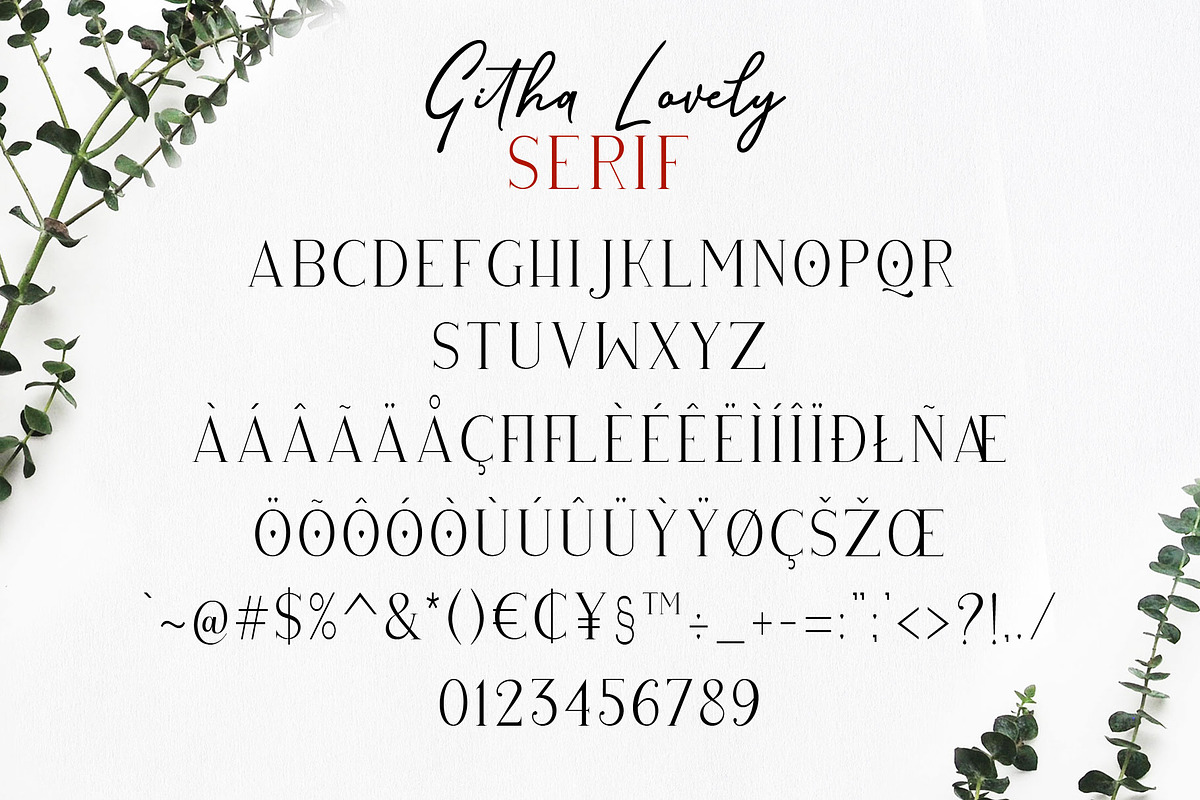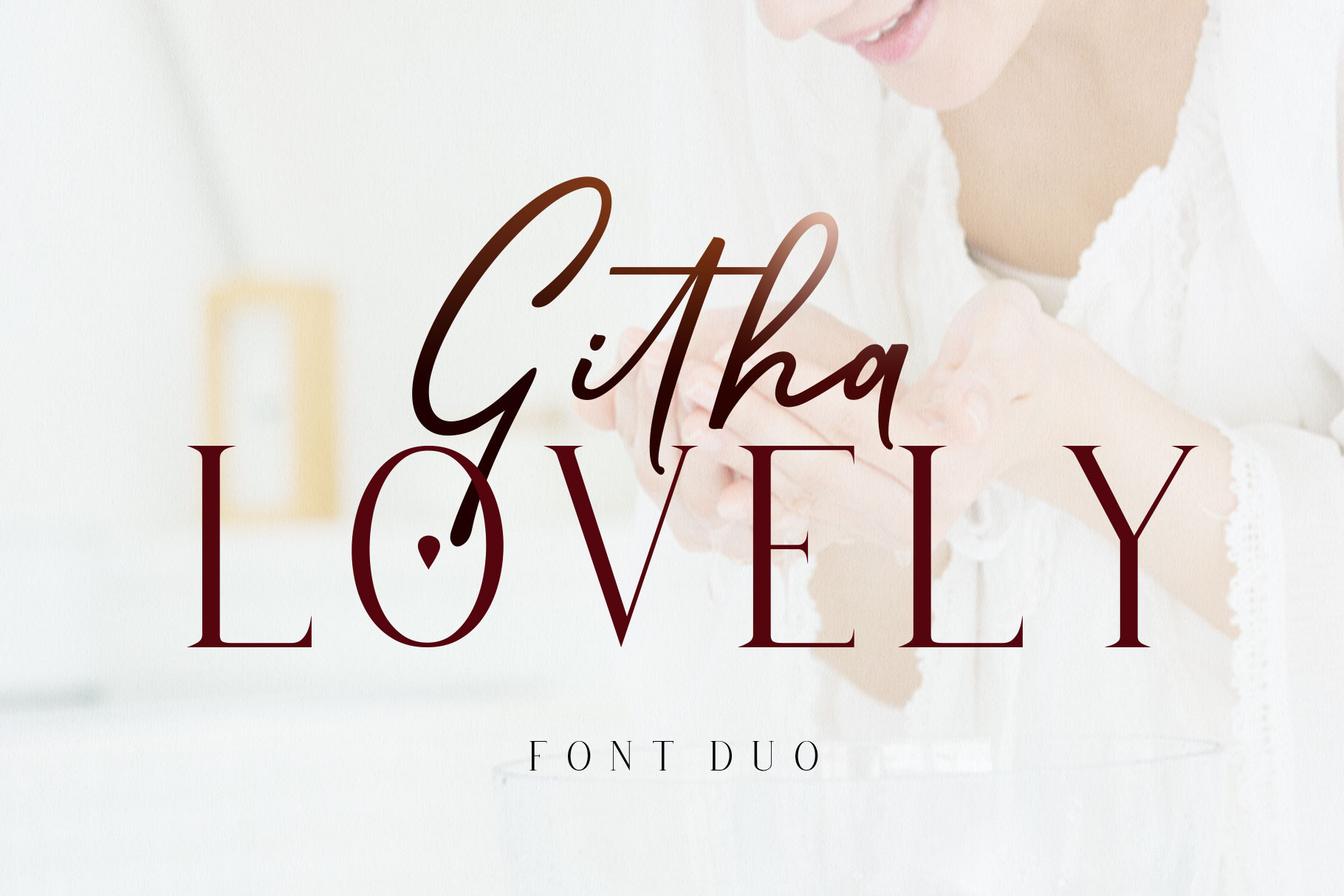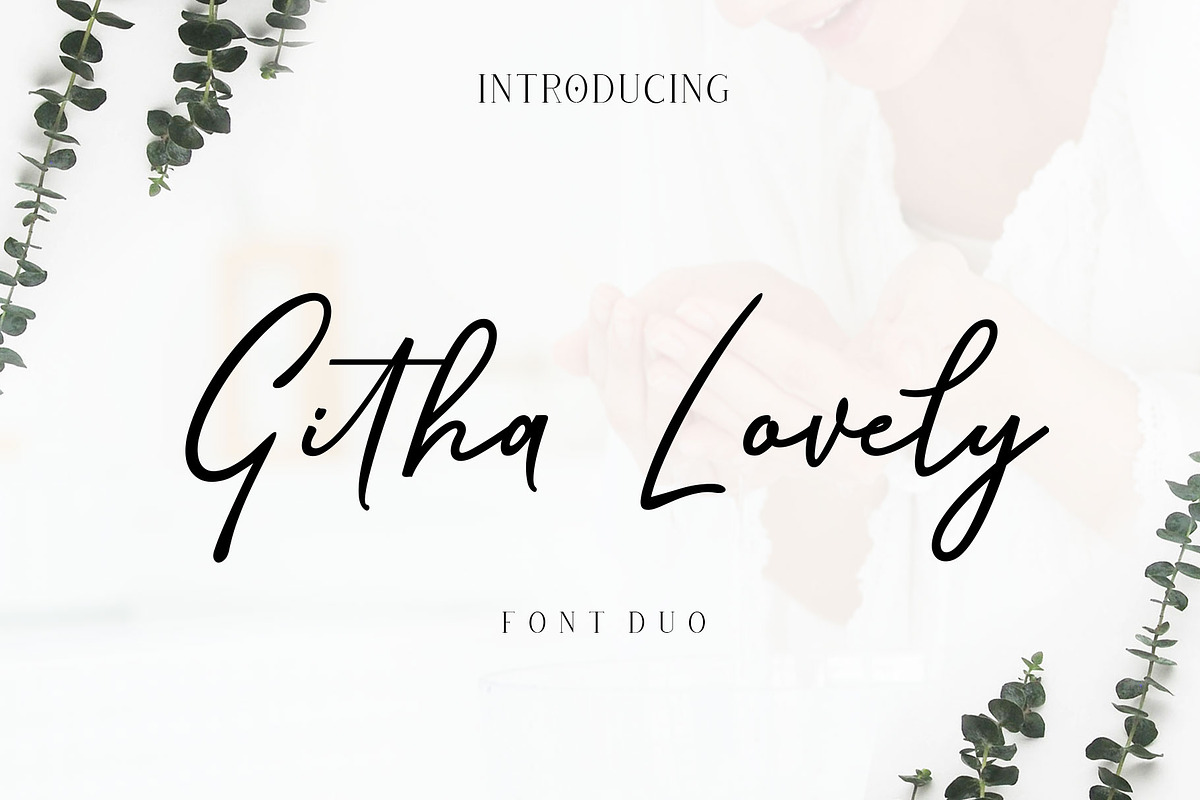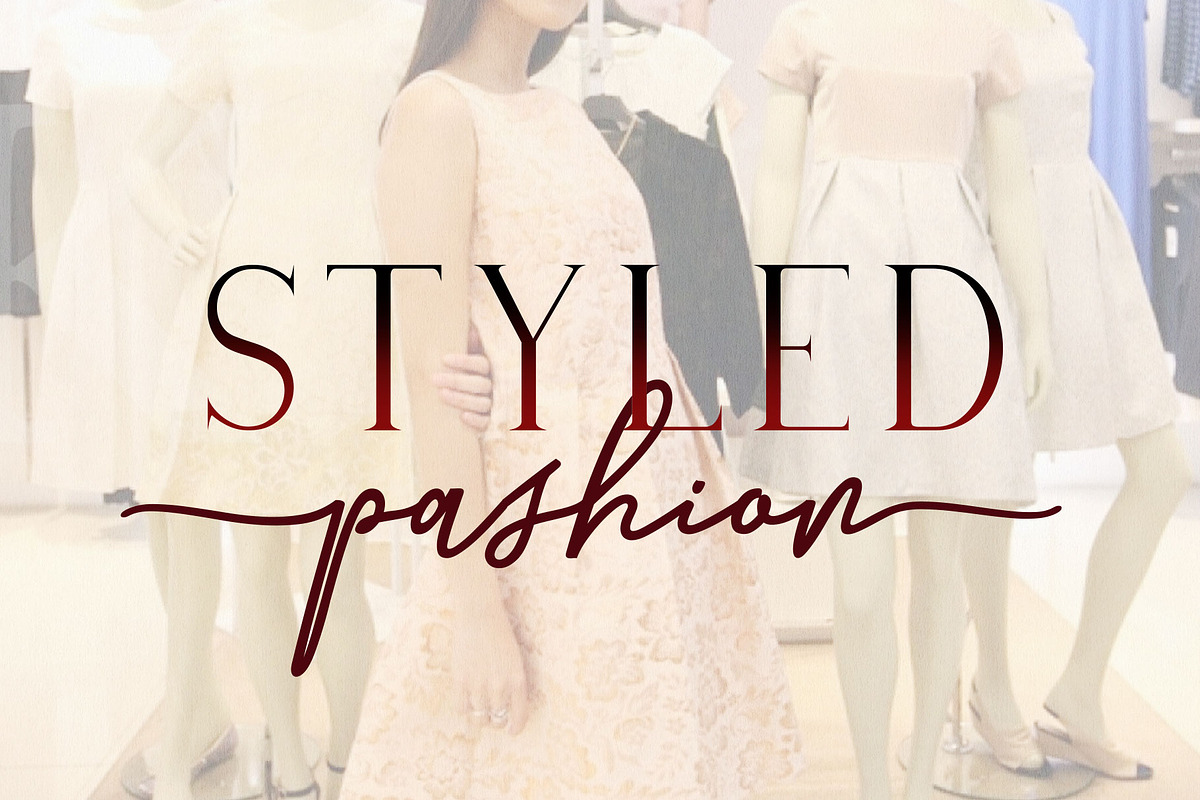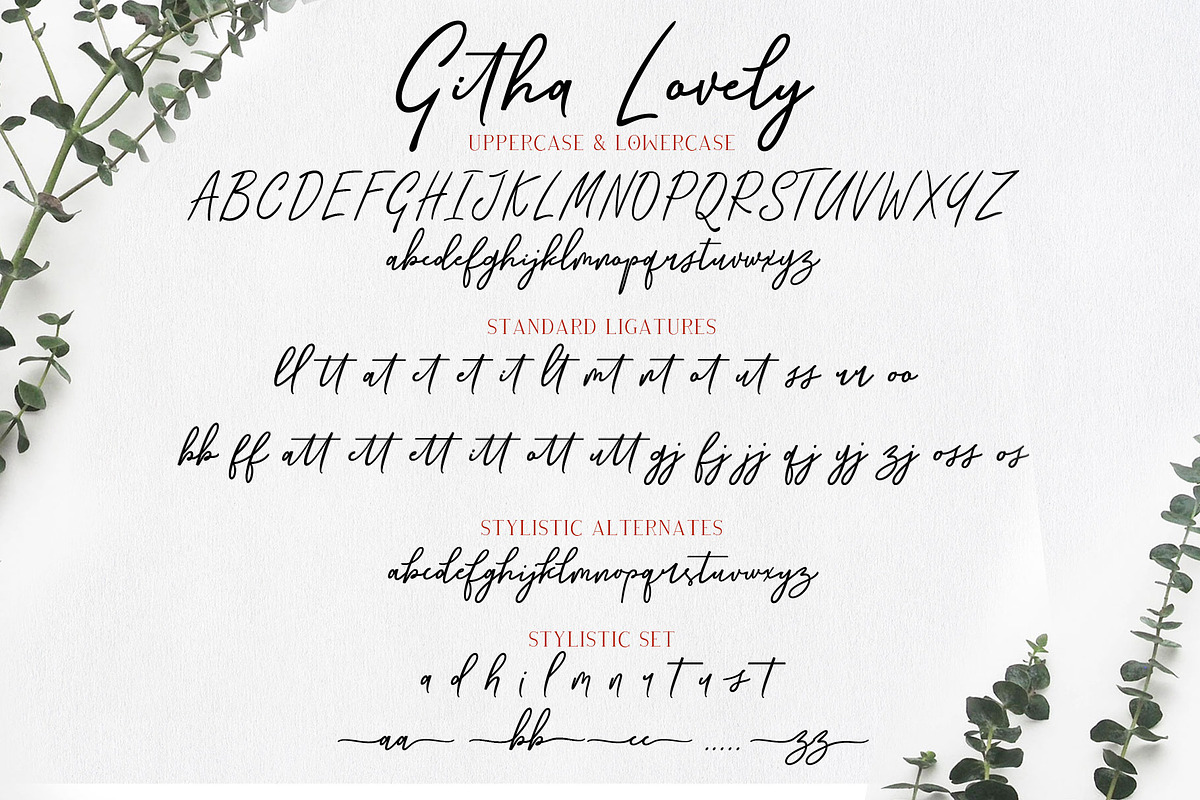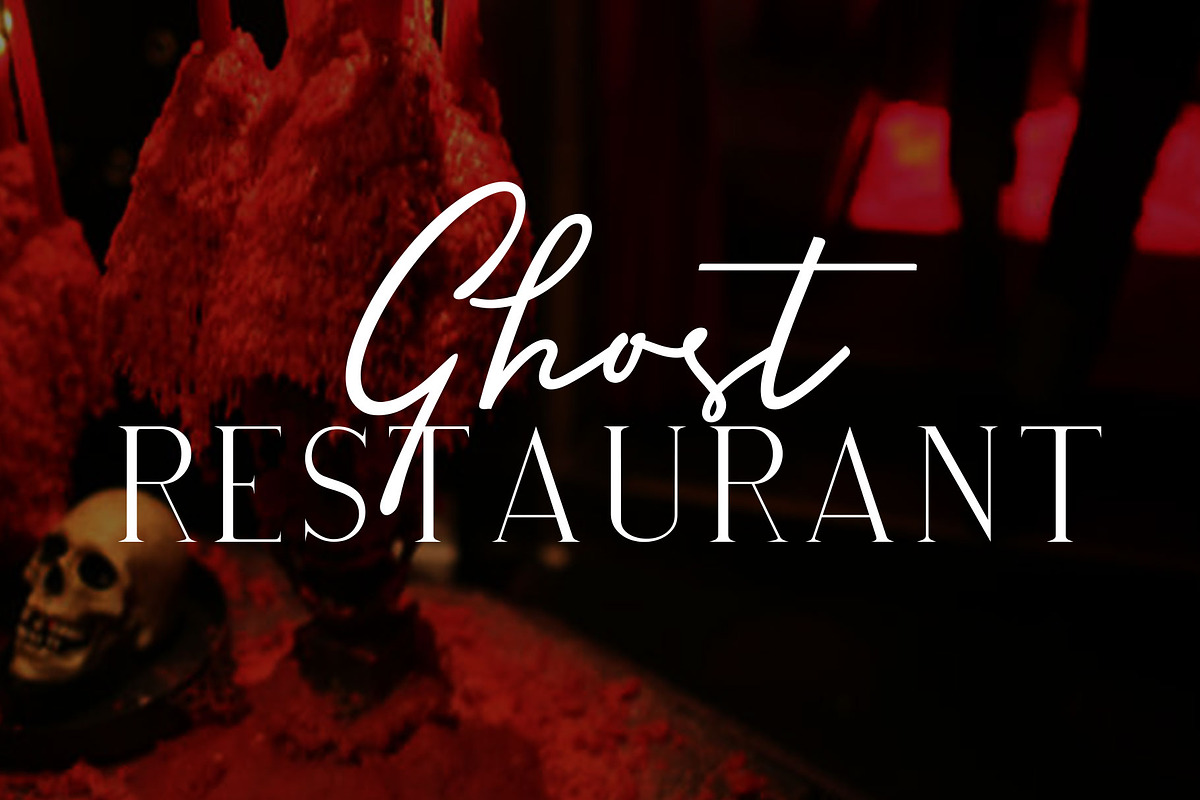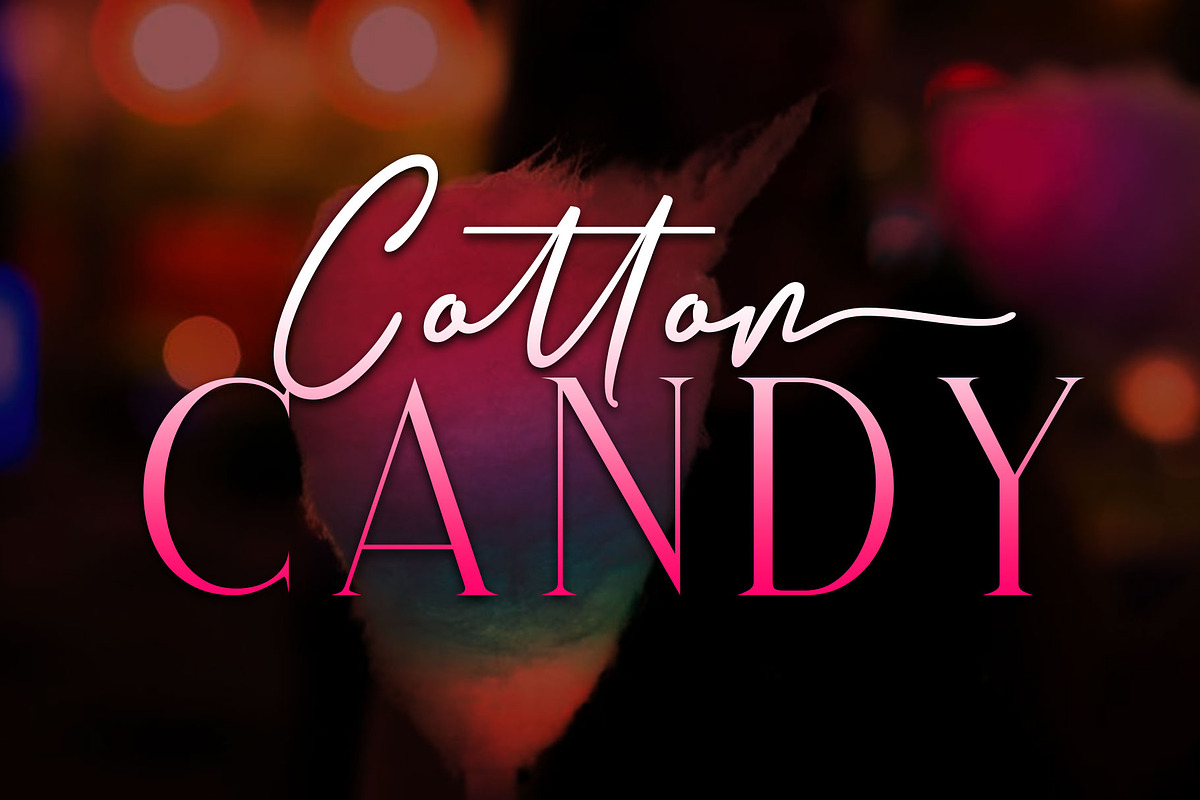
Githa Lovely | Font Duo
INTRODUCING Githa Lovely Font Duo. Script and Serif models are so beautiful and elegant.
Githa Lovely offers beautiful typography harmony for a variety of project design, including logo and branding, wedding design, social media posts, advertising, product design etc.
Githa Lovely includes lowercase and uppercase letters, numbers, punctuation marks, standard ligatures, stylistic alternates, stylistic set and multiple language support. This Font has given PUA unicode (specially coded fonts).
Githa Lovely Serif include lowercase letters and uppercase letters, numbers, punctuation marks and multiple language support.